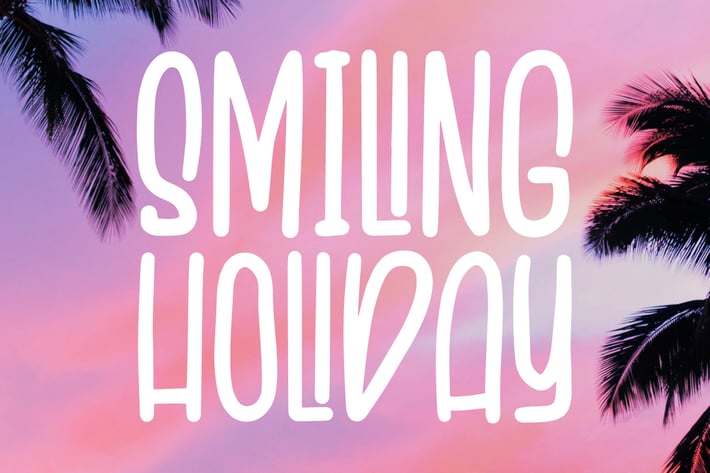
Smiling Holiday - Fun Sans Serif Font
Smiling Holiday is a fun sans serif font. This will add a very cute, unique, fun, playful touch to your design. This font is PUA encoded which means you can access all the glyphs and sweeps easily!
Features:\
+Uppercase & lowercase
+Numbers and punctuation
+Multilingual
+Ligatures
+PUA Encoding